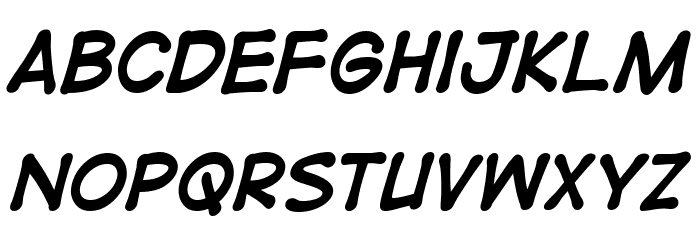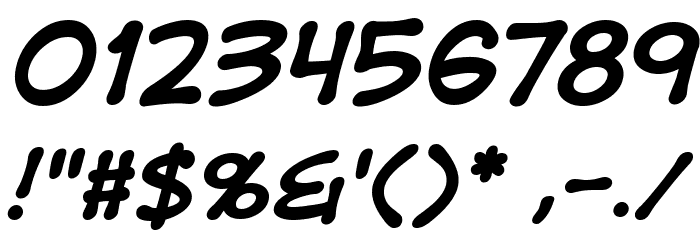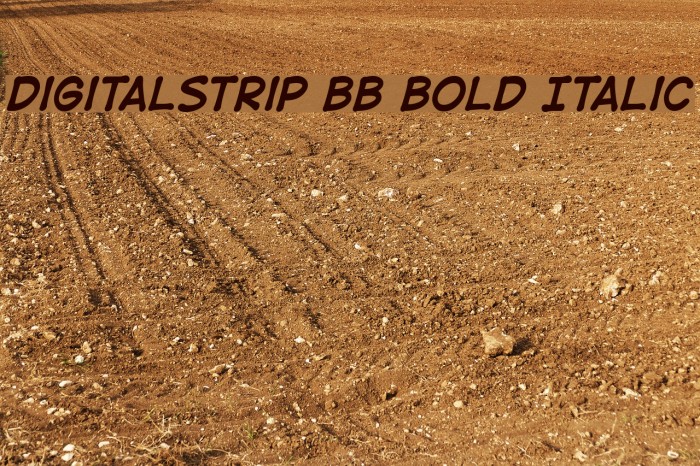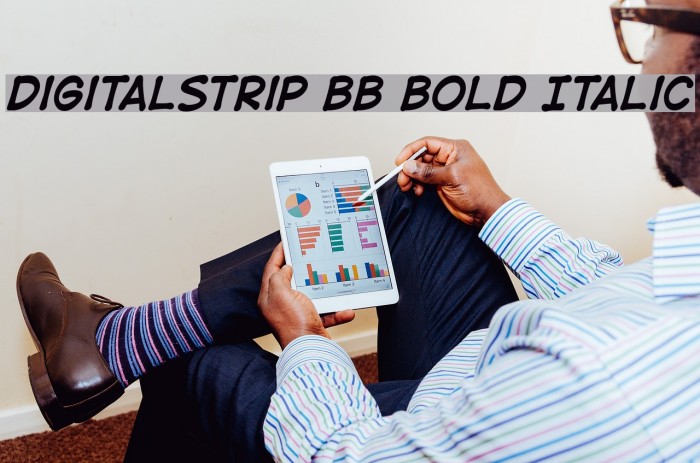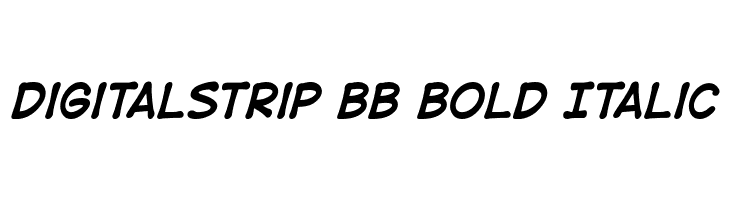
DigitalStrip BB Bold Italic Font
This font features a bold and italic style with a playful, handwritten appearance. The characters are rounded and slightly slanted, giving a dynamic and energetic feel. The uppercase and lowercase letters maintain a consistent style, with smooth curves and a uniform stroke width. The numbers and special characters follow the same design principles, ensuring a cohesive look across all elements. This font's boldness makes it highly legible, while the italic slant adds a sense of motion and informality.
A bold, italic, handwritten-style font with rounded, slanted characters.
- Proposed Projects: Ideal for comic books, playful branding, children's books, and informal invitations.
- Overall Style: Playful